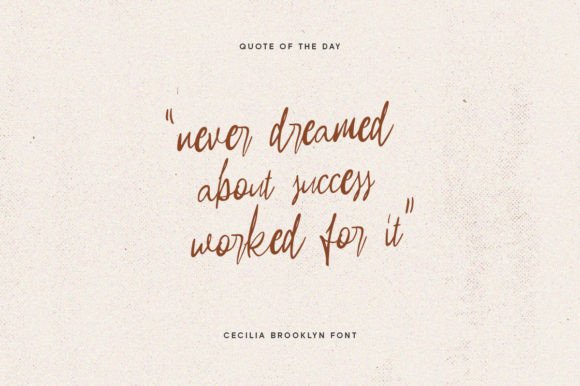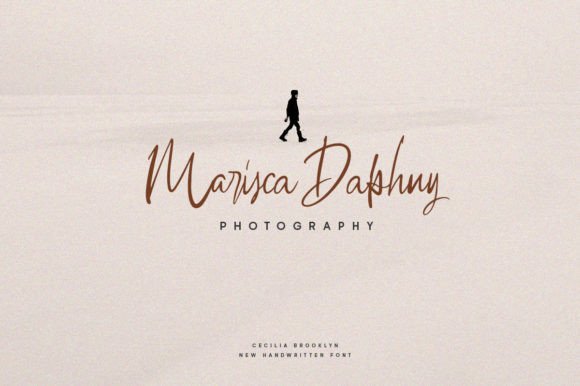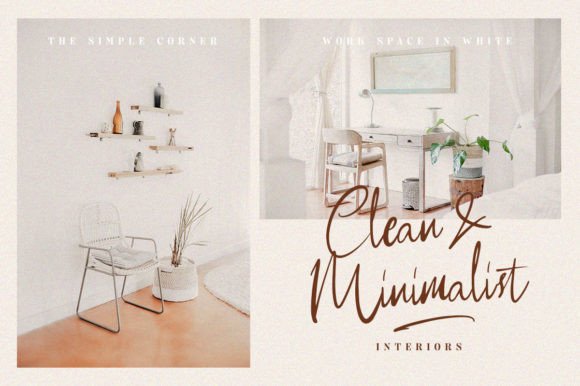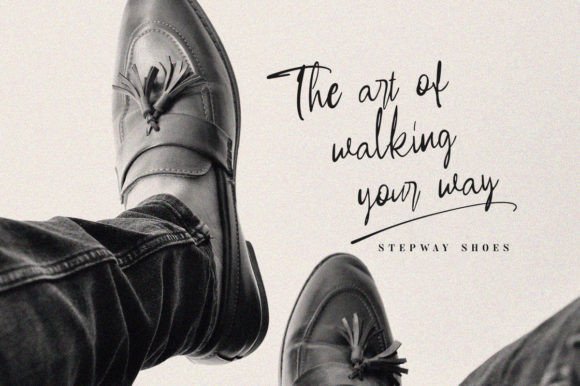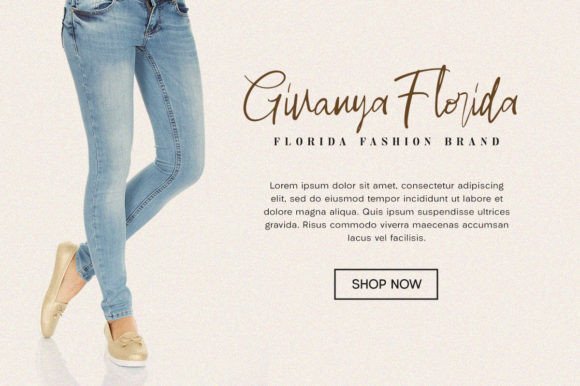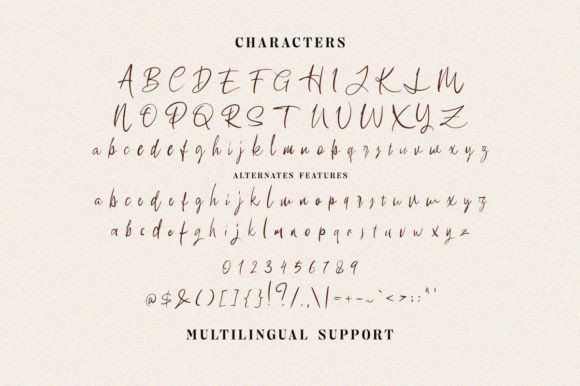
Cecilia Brooklyn Font: A Feminine Signature Script for Elegant Designs
Are you a designer or crafter looking for a font that adds a touch of elegance and sophistication to your designs? Look no further than Cecilia Brooklyn Font. This beautiful, feminine signature script is perfect for creating stunning wedding invitations, thank you cards, quotes, greeting cards, logos, business cards, and more.
What Makes Cecilia Brooklyn Font Special?
Cecilia Brooklyn Font is a unique and versatile font that stands out from the rest. Here are some of its key features:
- Feminine Signature Script: Cecilia Brooklyn Font is a beautiful, handwritten script that exudes femininity and elegance. Its flowing curves and delicate lines make it perfect for designs that require a touch of sophistication.
- Many Ligatures: This font comes with a range of ligatures, which allow you to create beautiful, connected letters that add to the overall elegance of your design.
- PUA Encoded: Cecilia Brooklyn Font is PUA (Private Use Area) encoded, which means you can access all the glyphs and ligatures with ease. This makes it simple to use and customize the font to suit your design needs.
Uses for Cecilia Brooklyn Font
Cecilia Brooklyn Font is a versatile font that can be used for a wide range of design projects. Here are some ideas to get you started:
- Wedding Invitations: Create stunning wedding invitations that set the tone for a beautiful and elegant wedding.
- Thank You Cards: Add a personal touch to your thank you cards with this beautiful font.
- Quotes: Use Cecilia Brooklyn Font to create inspiring and elegant quotes that can be used on social media, blogs, or marketing materials.
- Greeting Cards: Create beautiful greeting cards for special occasions such as birthdays, anniversaries, and holidays.
- Logos: Use Cecilia Brooklyn Font to create elegant and sophisticated logos for businesses or personal brands.
- Business Cards: Add a touch of elegance to your business cards with this beautiful font.
Why Designers and Crafters Love Cecilia Brooklyn Font
Cecilia Brooklyn Font has become a favorite among designers and crafters due to its unique and elegant design. Here are some reasons why:
- Easy to Use: The font is simple to use and comes with a range of ligatures and glyphs that can be accessed with ease.
- Customizable: Cecilia Brooklyn Font can be customized to suit your design needs, making it perfect for a wide range of projects.
- Elegant and Sophisticated: The font’s elegant and sophisticated design makes it perfect for creating high-end designs that require a touch of luxury.
- Time-Saving: With Cecilia Brooklyn Font, you can create beautiful designs quickly and easily, saving you time and effort.
Tips for Using Cecilia Brooklyn Font
Here are some tips for using Cecilia Brooklyn Font in your designs:
- Use it with Other Fonts: Cecilia Brooklyn Font pairs well with other fonts, so feel free to experiment with different combinations to create unique and interesting designs.
- Experiment with Colors: The font looks great in a range of colors, so don’t be afraid to experiment with different colors to find the perfect one for your design.
- Pay Attention to Spacing: Make sure to pay attention to the spacing between letters and words to ensure that your design looks elegant and sophisticated.
Cecilia Brooklyn Font is a beautiful, feminine signature script that is perfect for designers and crafters looking to add a touch of elegance and sophistication to their designs. With its many ligatures, PUA encoding, and elegant design, this font is sure to become a favorite among designers and crafters. Whether you’re creating wedding invitations, thank you cards, quotes, or logos, Cecilia Brooklyn Font is the perfect choice.